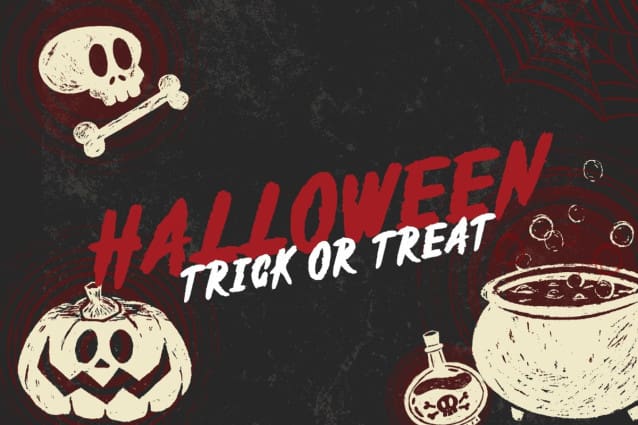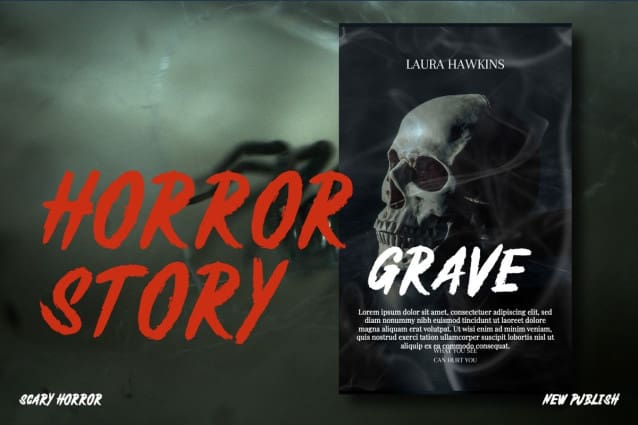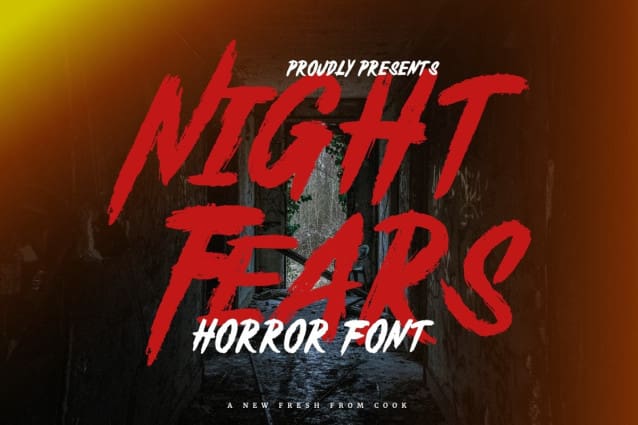
Night Fears Font
Night Fears Font is a display brush script font with a playful look. Masterfully designed to become a true favorite, this font has the potential to bring each of your creative ideas to the highest level!